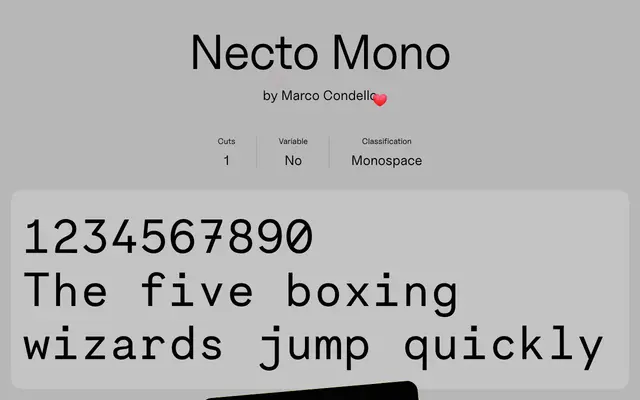
Necto Mono
Uncut · Marco Condello
Designed by Marco Condello, Necto Mono is a monospaced typeface available in one cut with no variable axis. It is distributed via the Uncut library under the SIL Open Font Licence 1.1, permitting commercial use, modification and redistribution. The minimal family structure makes it a straightforward option for coding environments or typographic projects requiring a clean monospaced face.
Classified explicitly as Monospace by the foundry; a single-cut monospaced typeface with no variable axis.